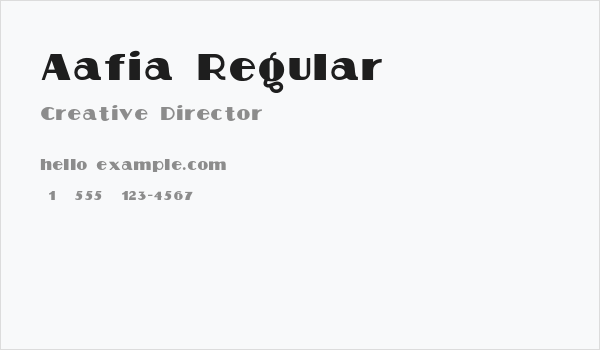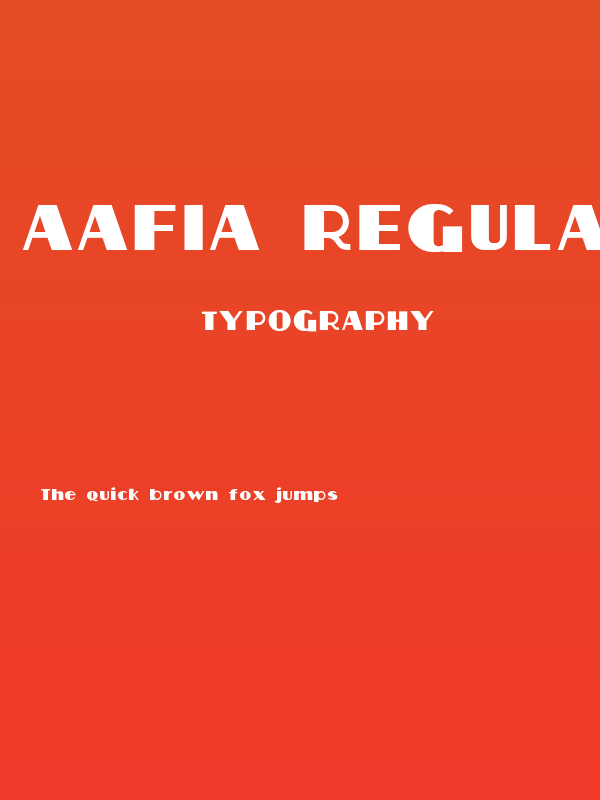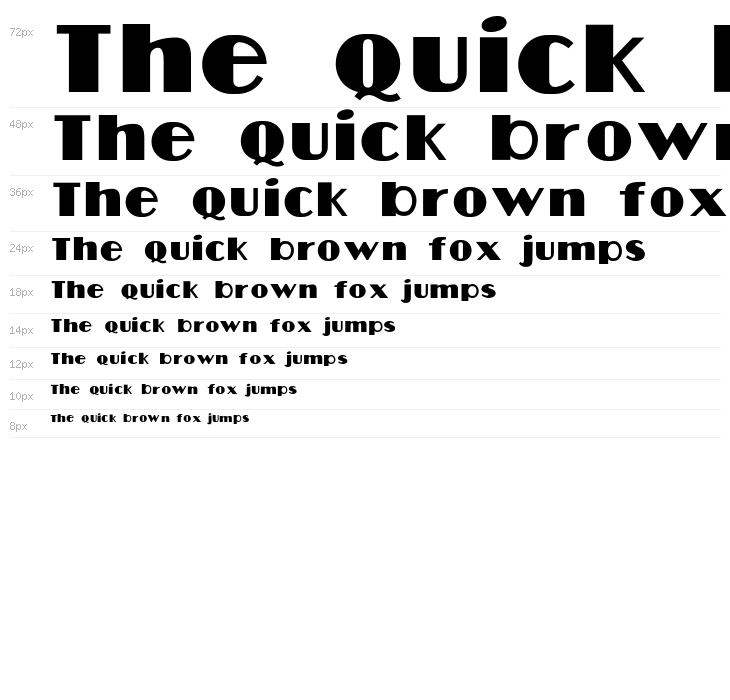
Aafia Regular Font
Aafia Regular Description
This font features a bold and striking appearance with thick, uniform strokes that create a strong visual impact. The uppercase letters are particularly prominent, with a slight slant in some characters that adds a dynamic feel. The lowercase letters maintain a consistent weight, ensuring readability while retaining the bold aesthetic. The numerals are equally robust, matching the overall style of the alphabet. The special characters are designed to complement the boldness of the letters, making them suitable for attention-grabbing designs. This font is ideal for projects that require a strong, confident typeface.
| Proposed Projects | Ideal for headlines, posters, branding, and any design requiring a strong visual impact. |